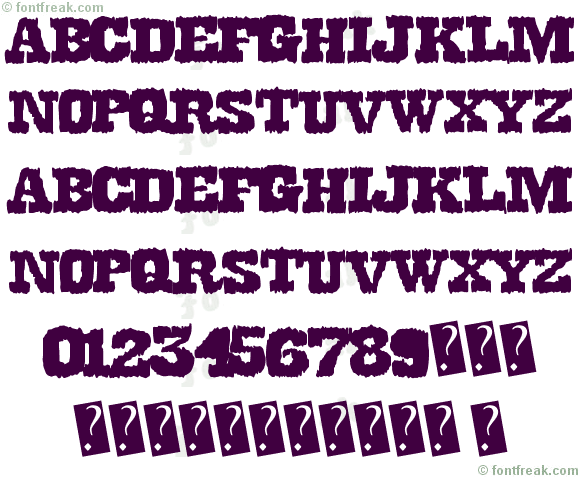
DirtyWestern
About DirtyWestern
DirtyWestern by Xerographer Fonts is a striking display font that embodies a rugged, Western aesthetic. This font, characterized by its bold, heavy stroke weight, features a unique distressed texture that evokes a sense of authenticity and grit. The uneven edges and irregular shapes contribute to its distinctive personality, making it a perfect choice for projects that require an eye-catching yet vintage feel. The spacing between the letters is designed to enhance readability while maintaining a strong visual impact.
Ideal for a variety of creative applications, DirtyWestern shines in settings such as cowboy-themed events, rustic wedding invitations, and Western movie posters. Its bold character makes it suitable for branding elements in casual dining restaurants, especially those with a barbecue or country theme. Additionally, it can be effectively used in merchandise design, such as T-shirts and hats that celebrate Western culture.
What sets DirtyWestern apart is its ability to blend style with functionality. It captures the essence of the Wild West while remaining approachable for modern audiences, making it a standout choice for anyone looking to make a bold statement. For those interested in exploring this unique typeface, a DirtyWestern font free download is readily available, allowing you to incorporate its distinctive style into your work with ease.